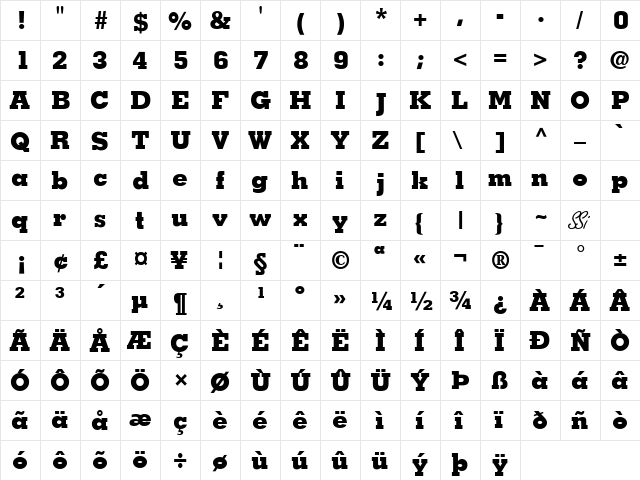
Jaak Black SSi Extra Bold
Design Context for Jaak Black SSi Typeface
Jaak Black SSi is a composed and adaptable typeface that performs quietly and consistently across a wide range of design contexts. The heavy weight commands attention and anchors typographic hierarchies.
Pro Tip: Use Jaak Black SSi in both headline and body roles to test its range before committing to a single application.